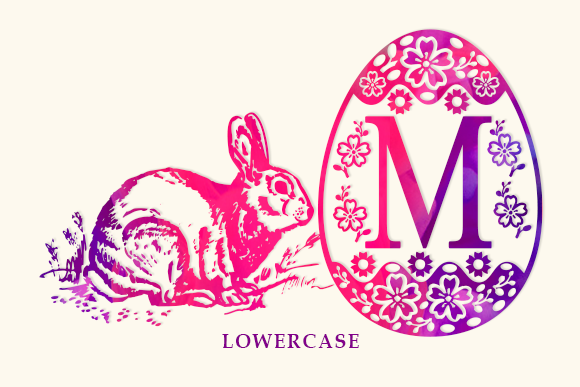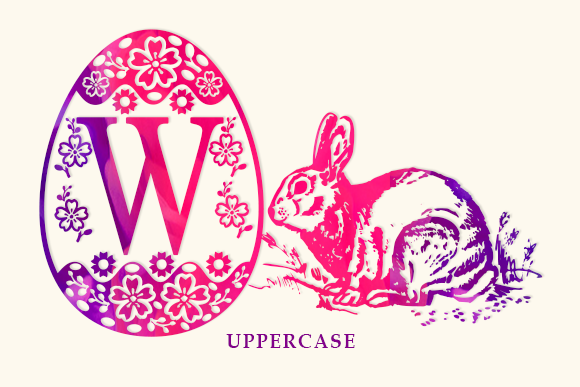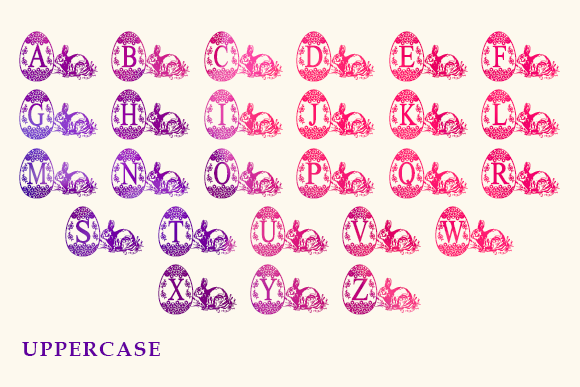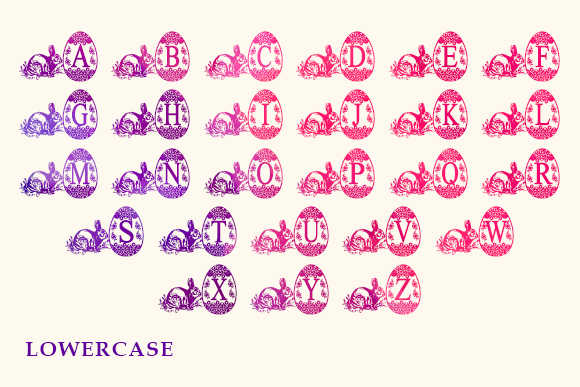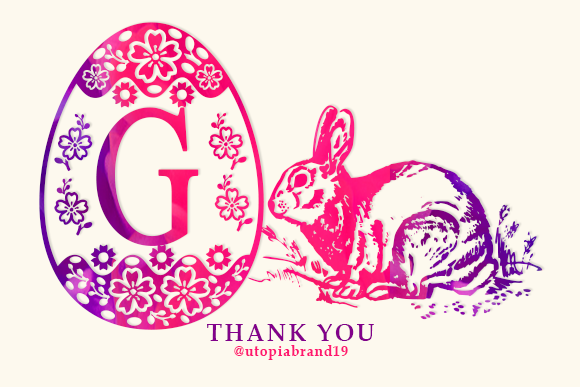
The Easter Rabbit Font: A Sweet Addition to Your Easter Designs
I’ll never forget the time I was working on an Easter-themed project for a client, and I just couldn’t find the right font to bring the design to life. The client wanted something sweet, playful, and visually appealing, but everything I tried seemed either too boring or too over-the-top. That’s when I stumbled upon the Easter Rabbit font, and it instantly became the perfect fit. In this article, I’ll share my experience with this charming font, its features, and how to make the most of it in your designs.
An Honest Review of Easter Rabbit Font
The Easter Rabbit font has quickly become one of my go-to choices for Easter-related designs, and for good reason. Here’s what I love about it:
- ✨ Sweet and playful design: The Easter Rabbit font has a delightful, whimsical feel that’s perfect for Easter-themed projects.
- ✅ Easy to read: Despite its decorative nature, the font remains clear and legible, even at smaller sizes.
- ✅ Versatile: It works well for both headings and short paragraphs, making it a great all-around choice.
Of course, no font is perfect, and there are a few quirks to be aware of:
- 🤔 Limited character set: While the Easter Rabbit font has a lovely selection of characters, it may not be the best choice for projects requiring a wide range of special characters or glyphs.
- ⚠️ Not suitable for body text: While it’s clear and legible, the Easter Rabbit font is still a decorative font and may not be the best choice for longer blocks of text.
The Story Behind Easter Rabbit Font
The Easter Rabbit font was created with the goal of capturing the whimsy and charm of Easter. Inspired by traditional Easter decorations and the playful nature of the holiday, this font brings a touch of sweetness to any design. Whether you’re a professional designer or a creative hobbyist, the Easter Rabbit font is designed to help you create eye-catching, festive projects.
The Easter Rabbit font is a delightful addition to any designer’s toolkit, especially for those working on Easter-themed projects. Its sweet, playful design and ease of use make it a versatile choice for various applications. By understanding its features and how to use it across different platforms, you can create visually appealing designs that stand out.